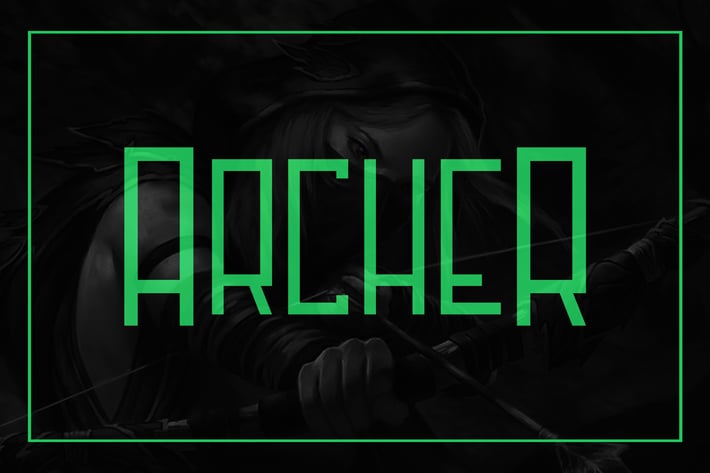
Archer Font
Archer Font is an elegant geometric font that you can use for big outdoor biloboards as well as headlines for your magazine or brochure. The font has uppercase letters, numbers and two other base use glyphs.